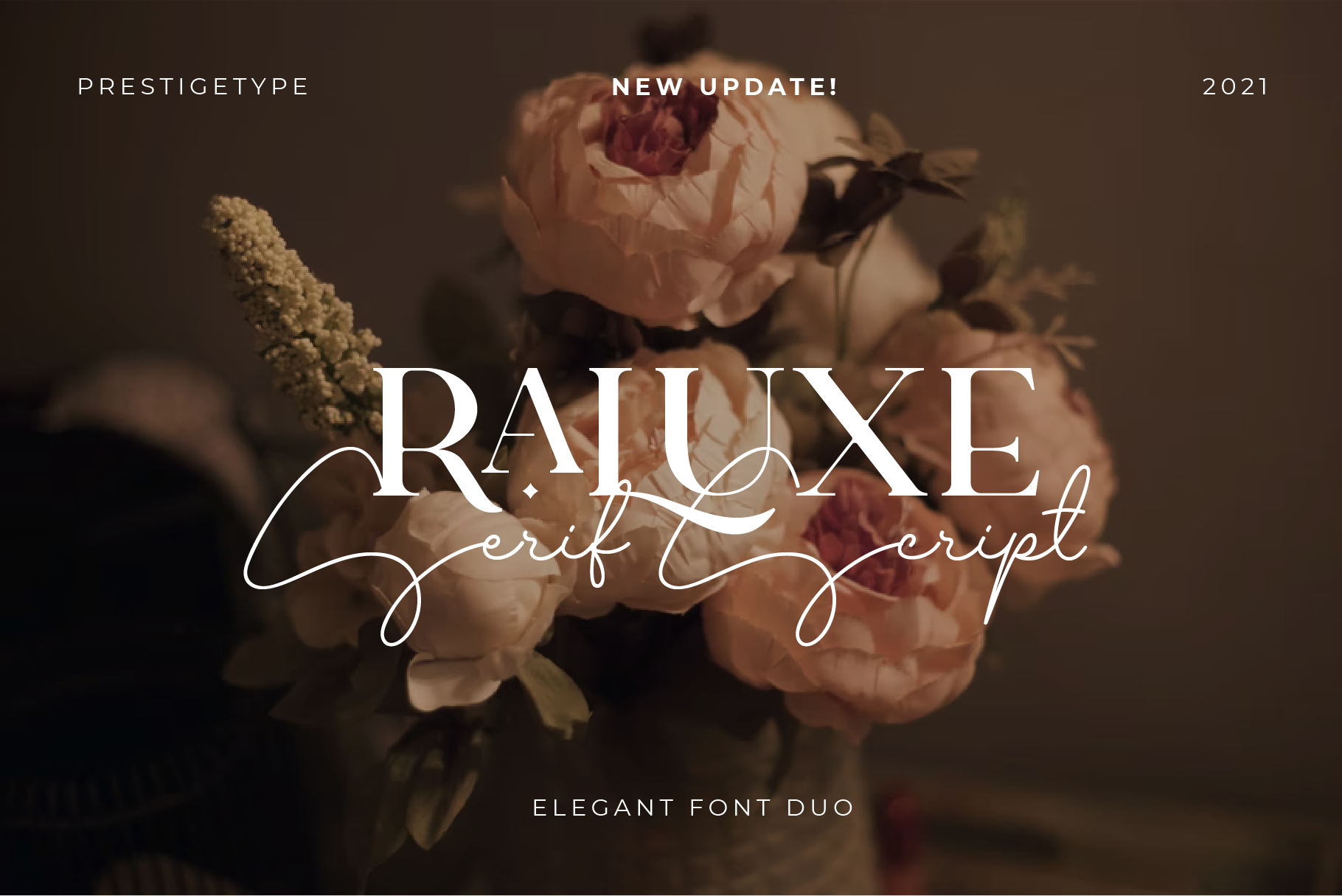
Raluxe Font Duo (Updated!)
Need a font for a brand and personal visual identity? Introducing, our outstanding premium font duo, Raluxe; consisting of a ligature-rich Serif and elegant Script. These fonts are designed to pair harmoniously, specifically use for brand visual identities and personal identities such as logos, headlines, titles, labels, stationery, magazine, fashion industry, social media banner, business cards, or any advertising purposes. This typeface has been made carefully to make sure it's premium quality.